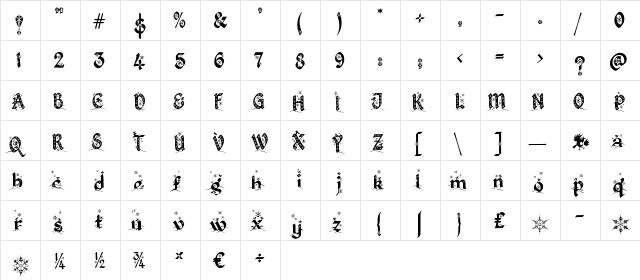
Kingthings Christmas Regular
| Foundry | Kevin King: Kingthingsfonts.co.uk |
| Designer | Kevin King 2007 |
Design Context for Kingthings Christmas Typeface
Kingthings Christmas is a composed and adaptable typeface that performs quietly and consistently across a wide range of design contexts. Its slender proportions lend an understated elegance to any composition.